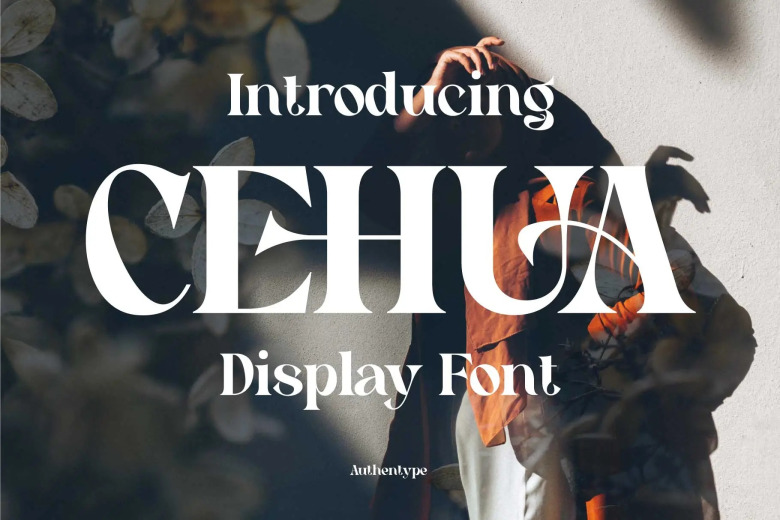
Cehua Font
Cehua is an elegant and bold lettered Serif Font from designer Authentype. still keeps a calligraphic touch in it and looks pretty modern and chic has to be Elegant serif font Cehua is perfect for beauty product branding; containing a lot of letters and ligatures, the font will add your design that nice feminine look.
Cehua Serif Font